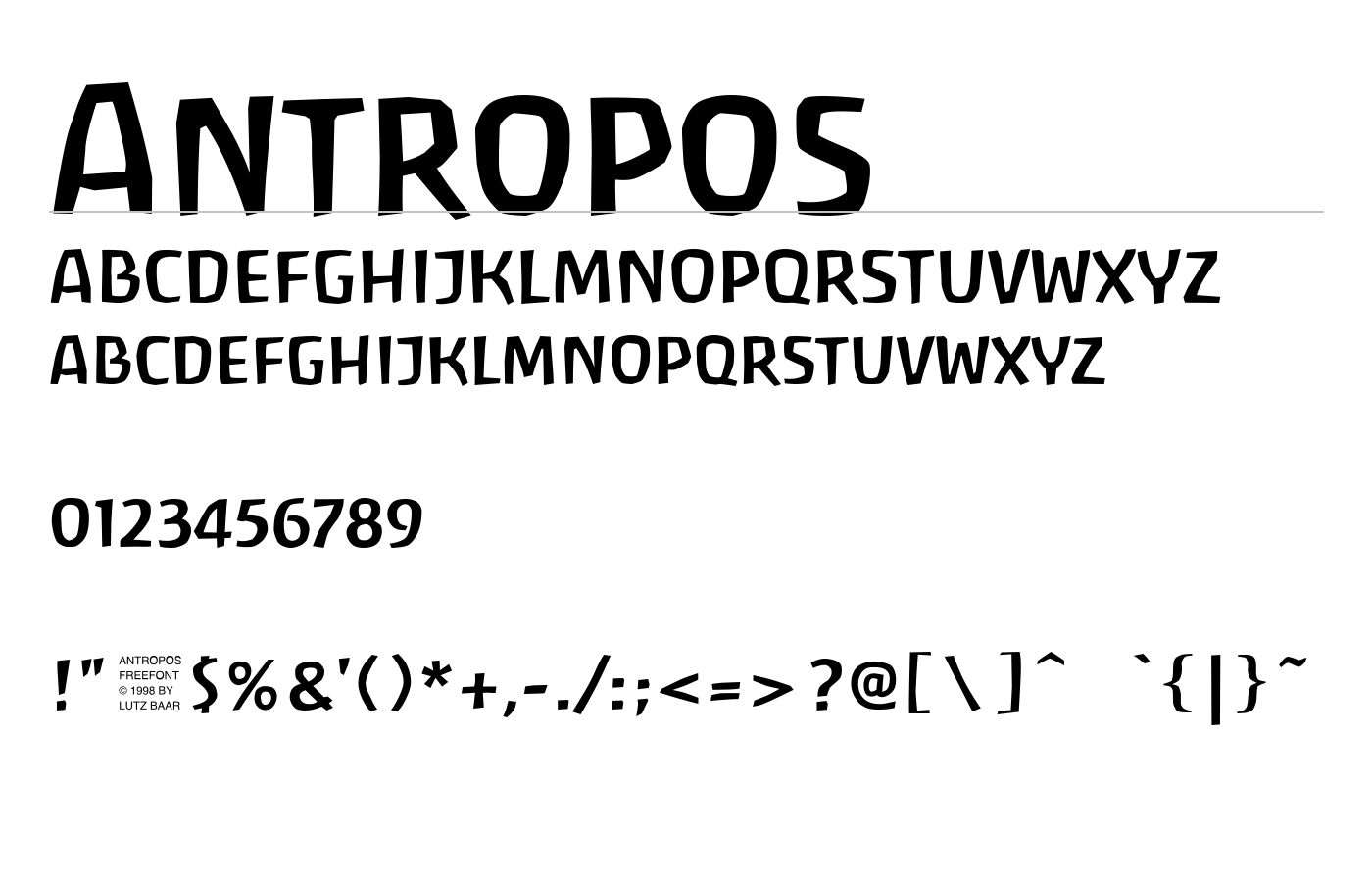
Antropos is a bold, condensed sans serif font with a hand-drawn, slightly irregular style that gives it a distinctive and playful personality. Its tall, narrow letterforms and subtle stroke variations create a casual yet confident feel, making it perfect for creative branding, posters, and headlines where a unique, human touch is desired. This font works well in designs that want to stand out with character while maintaining clear readability.
Antropos Font
About Antropos Font